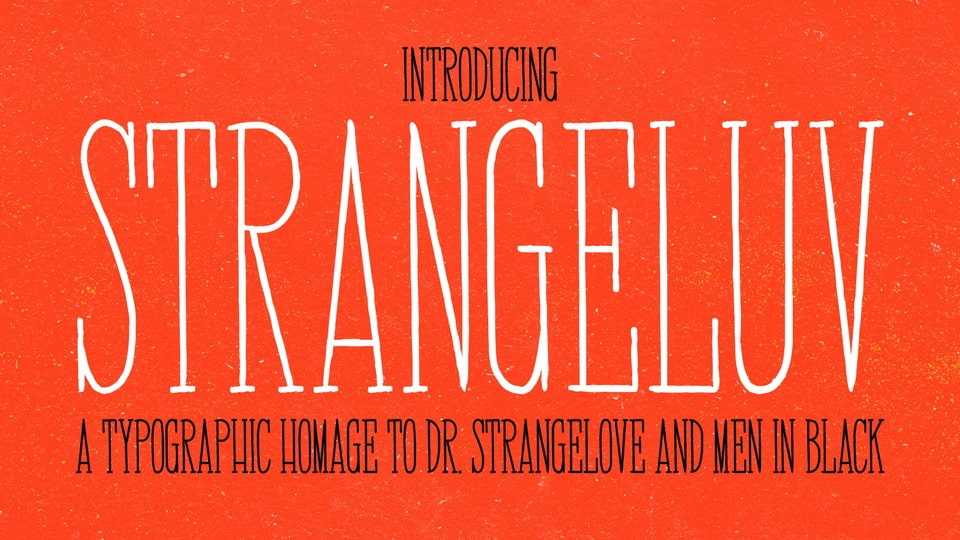
Download Strangeluv font, a restyling of the legendary lettering by Pablo Ferro. Among the new features of this typeface: serifs, lowercases, a few ligatures, strange accents and stuff like that.
Designer: Julian Gudowski